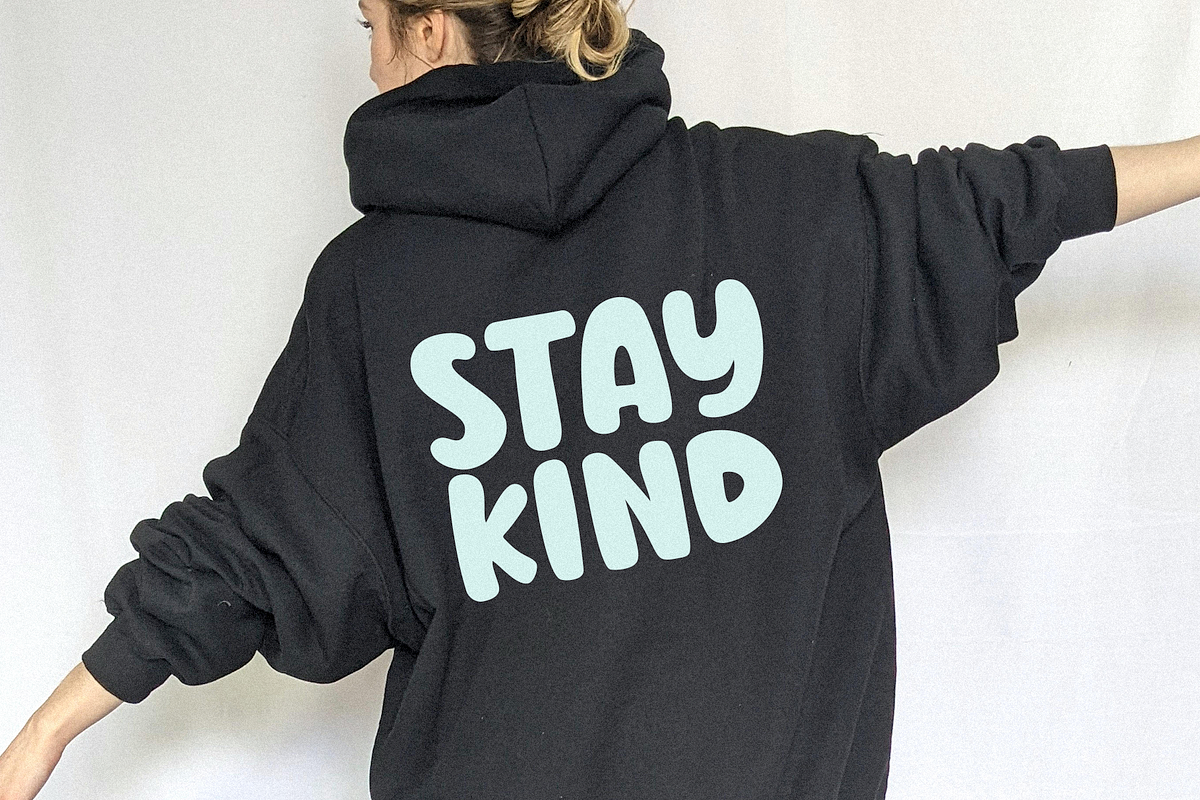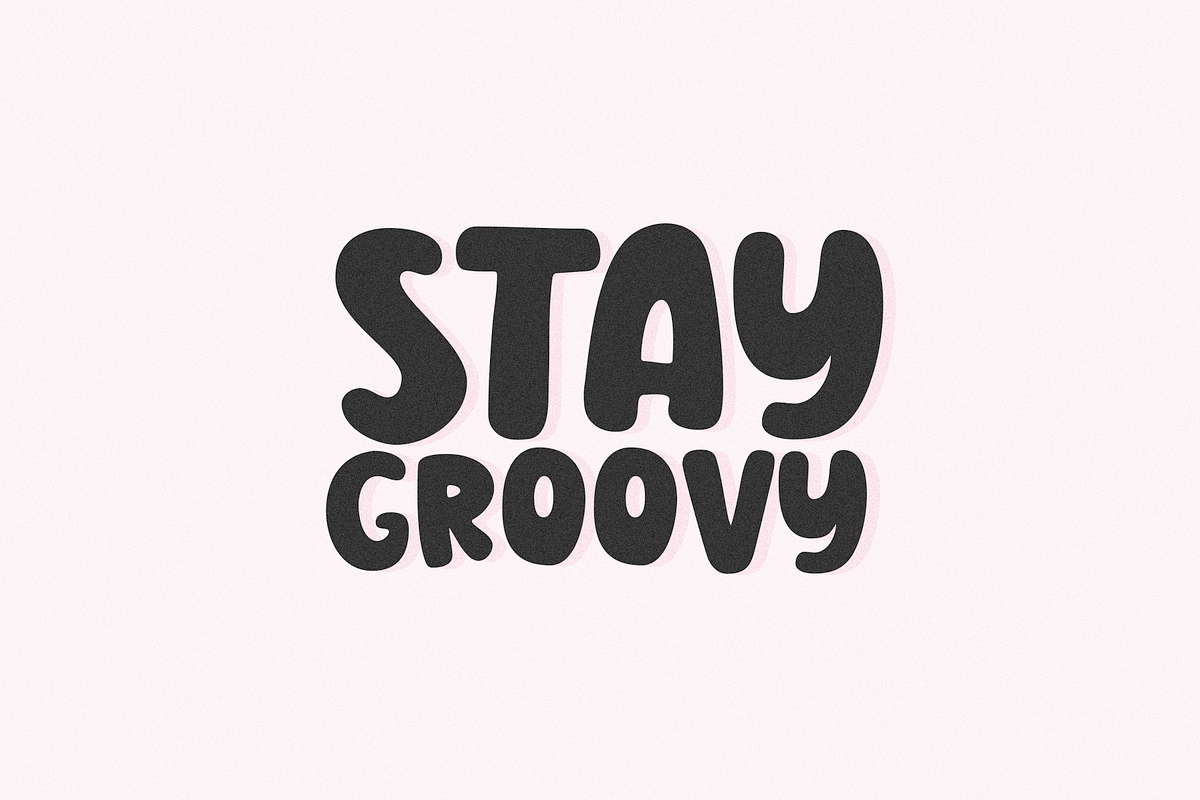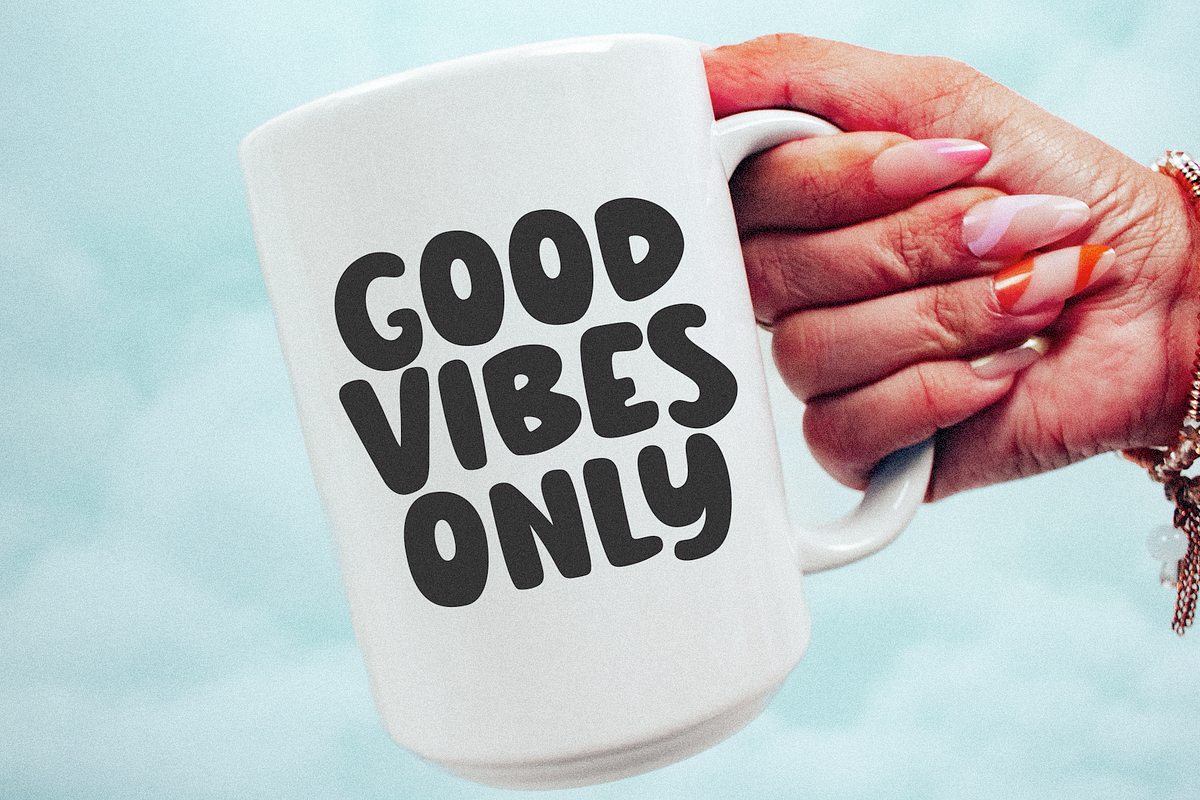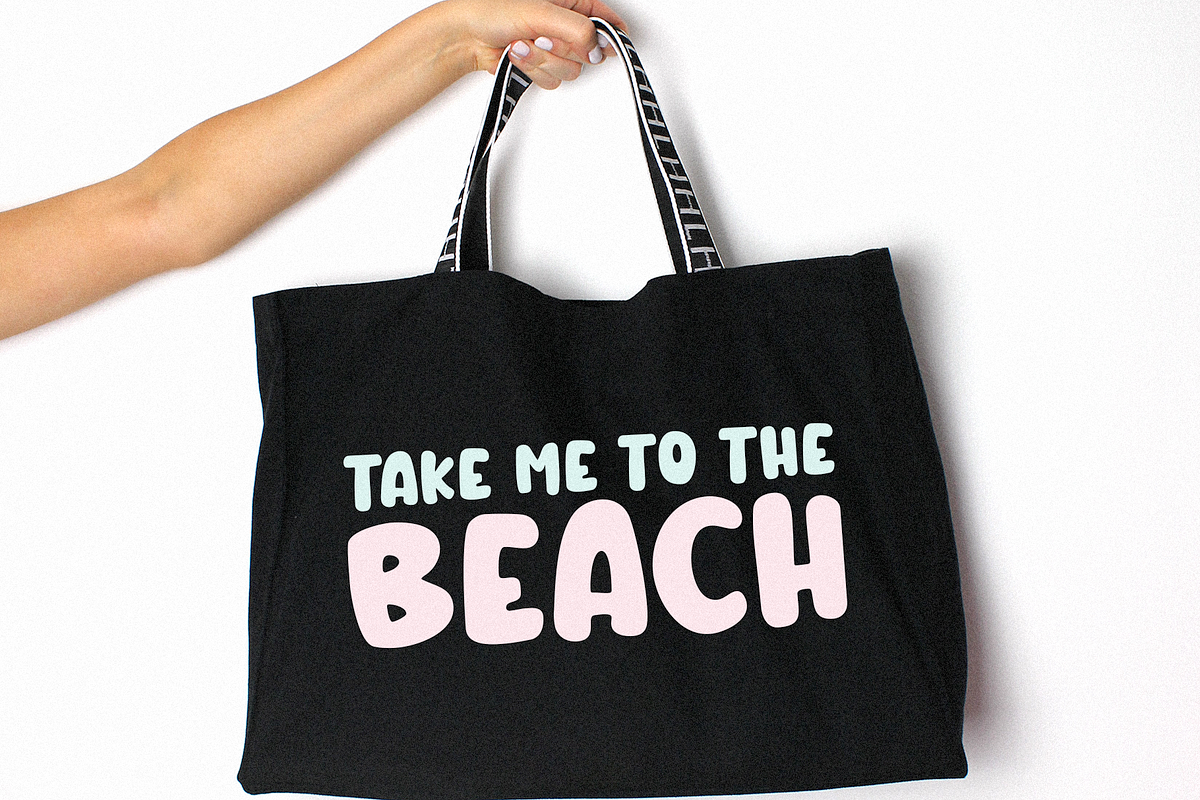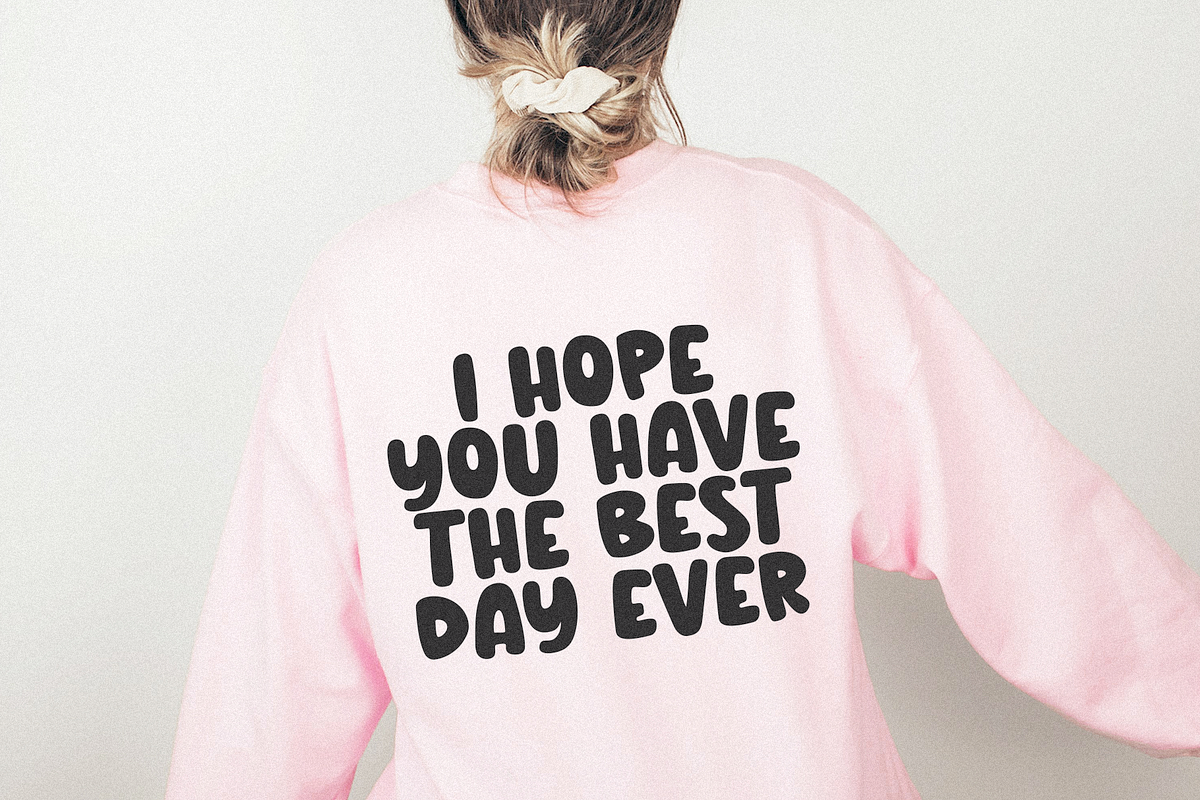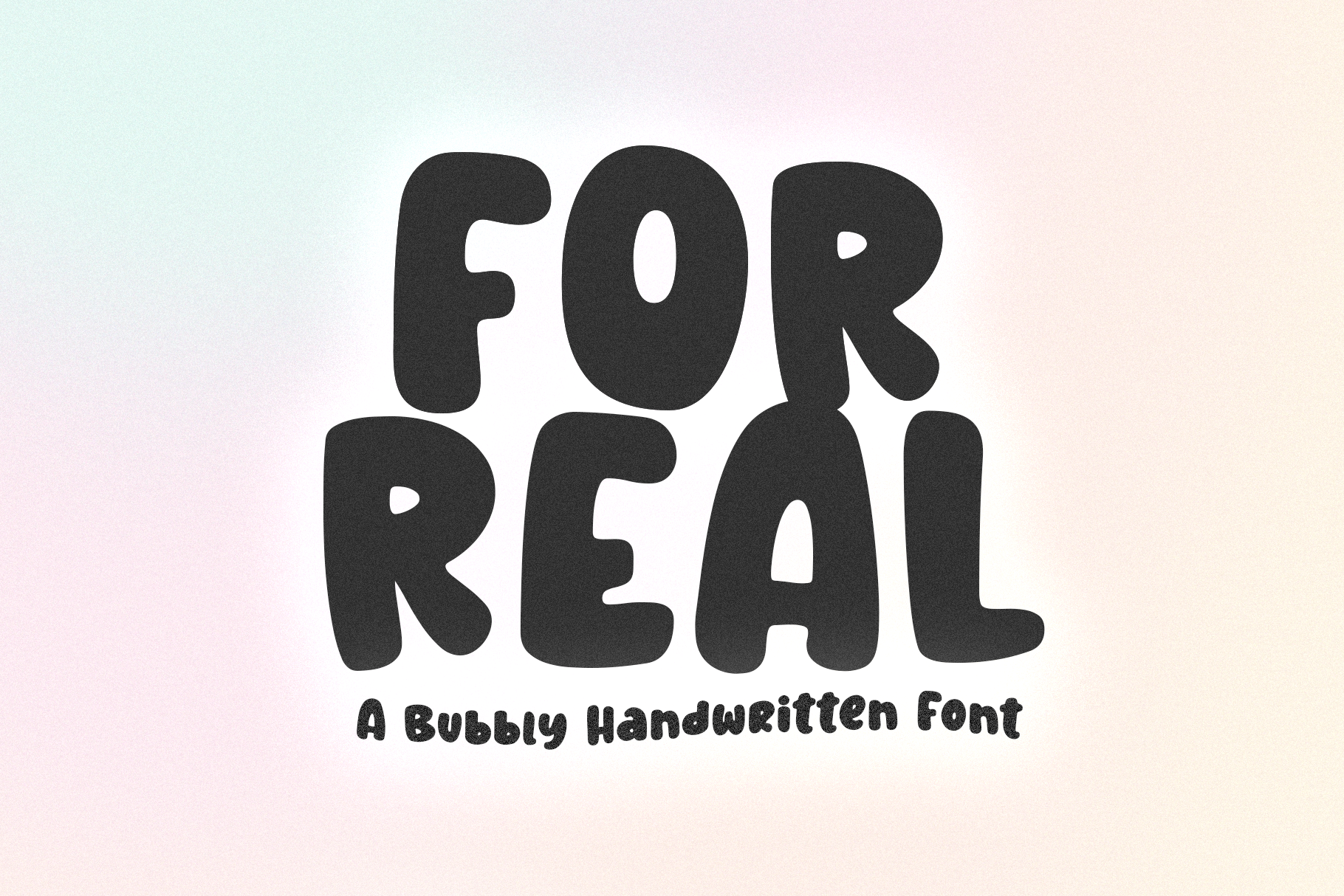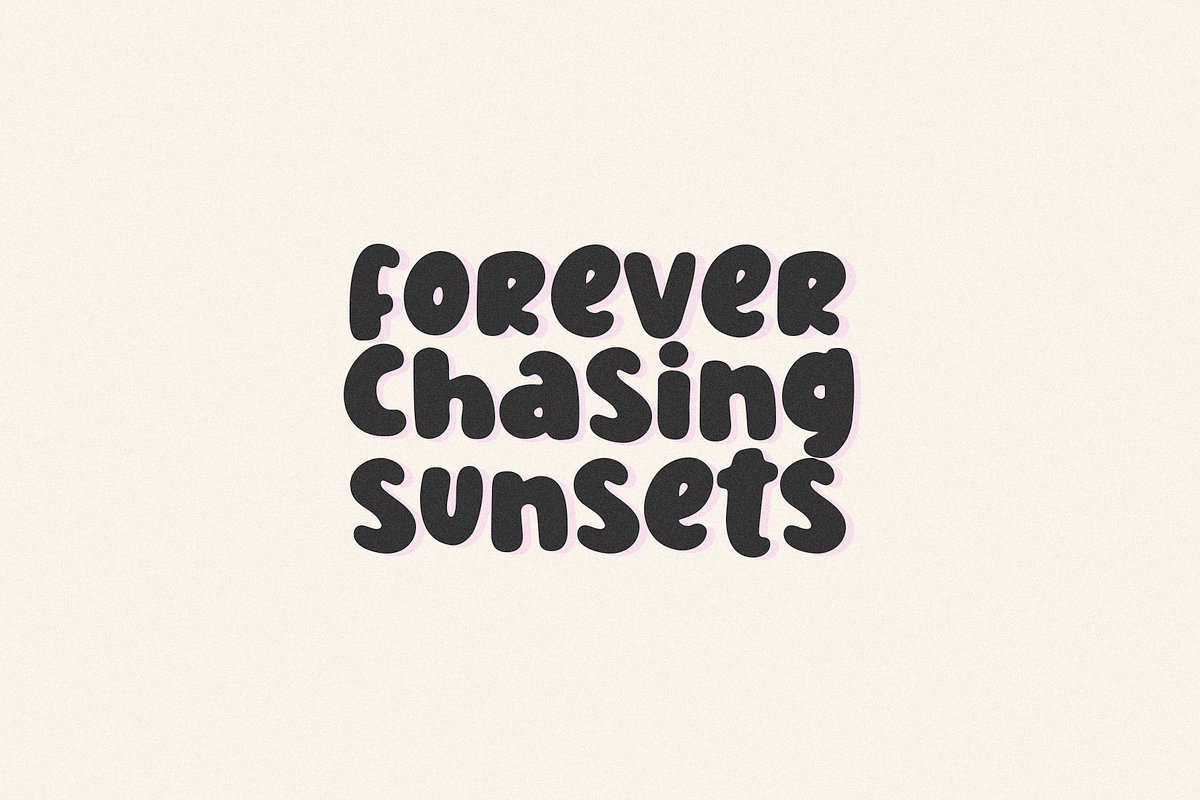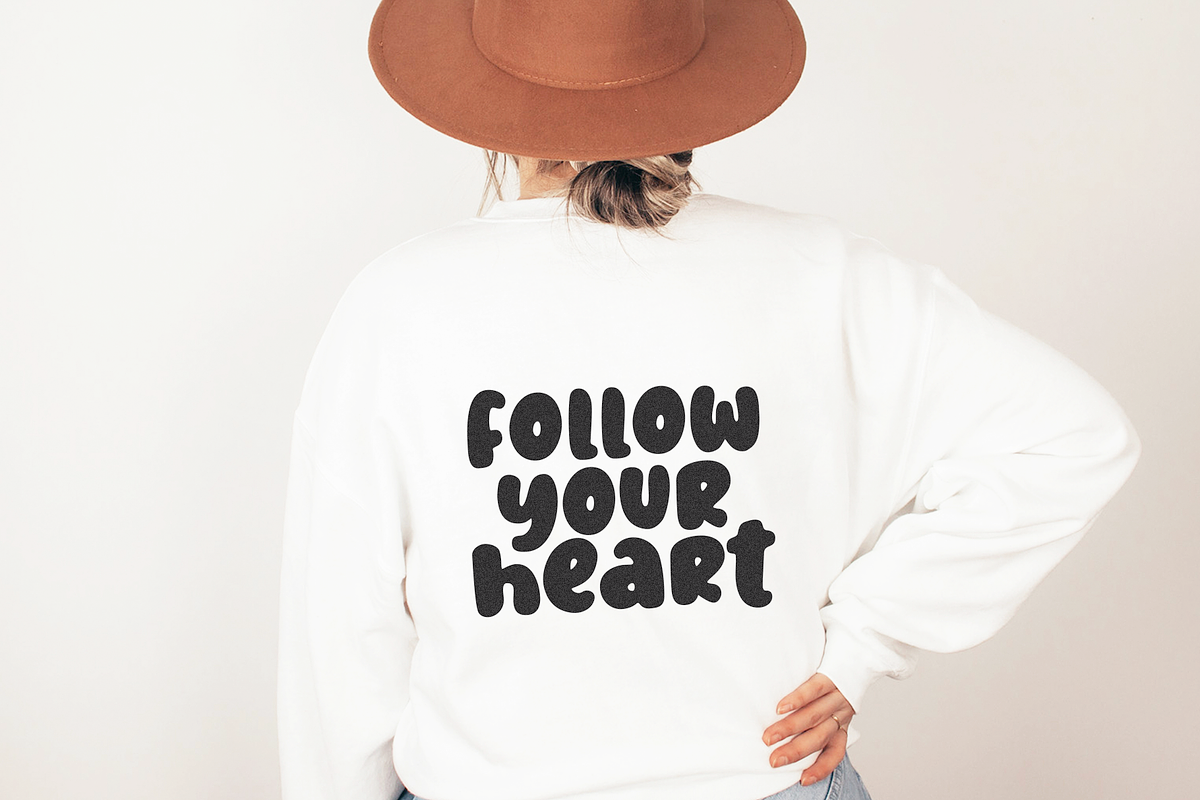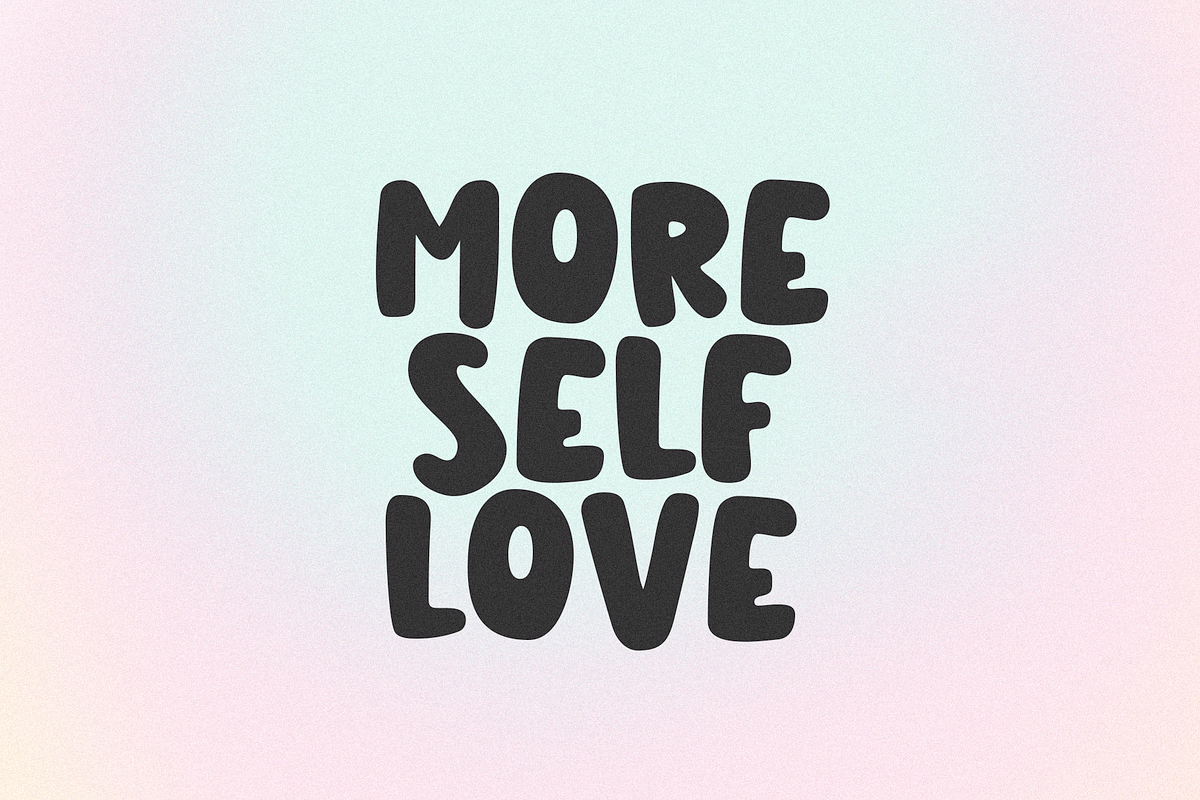
For Real | Bubbly Handwritten Font
For Real is a bubbly handwritten font.. and a little bit groovy too!
This font is perfect for creating retro shirt designs, stickers, phone cases, instagram quotes, cricut projects, procreate, logos and more!